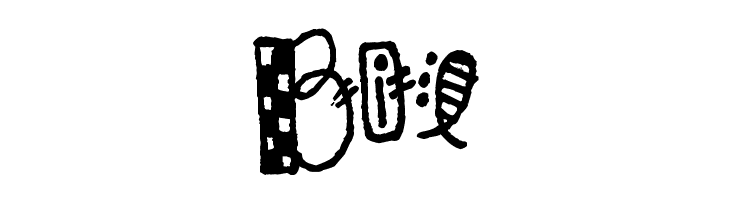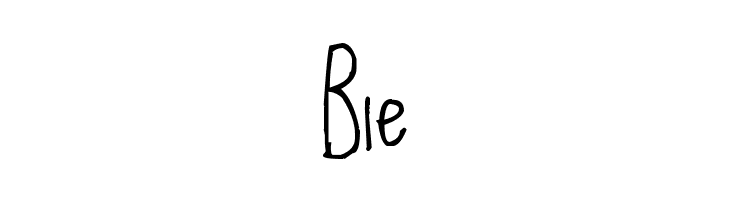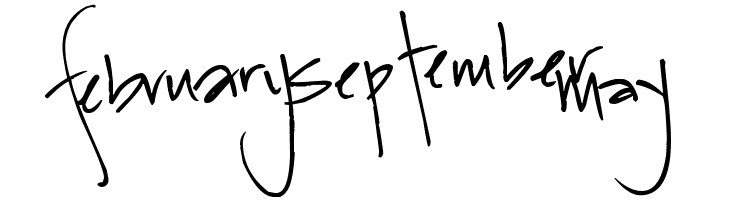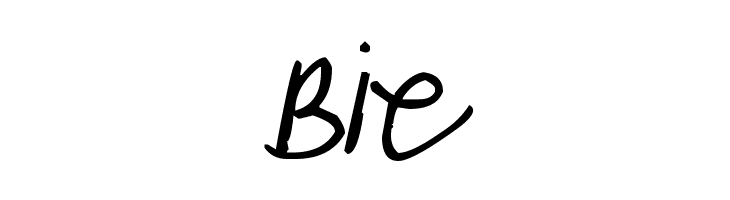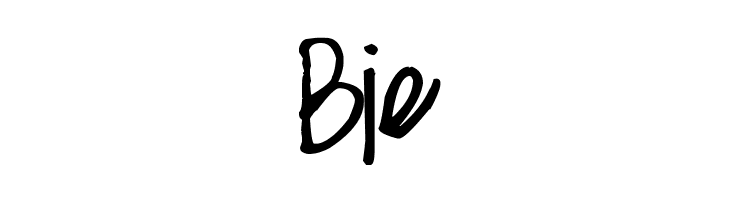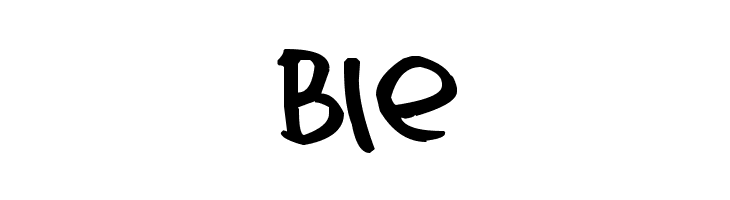
• Pea Ambrielle
A whimsical, hand-drawn font with playful, decorative elements.
• Pea Amie
A playful, informal handwritten font with uneven strokes and a friendly style.
• Pea Amy G
A playful, casual handwritten font with an organic, lively style.
• Pea Amy Jo Jo
A playful, hand-drawn font with tall, narrow letters and a whimsical charm.
• Pea Annie
A casual, playful handwritten font with fluid, natural strokes.
• Pea Ashley Rose
A playful and casual handwritten font with a dynamic, informal style.
• Pea Ashlyn
A playful, casual handwritten font with dynamic, irregular strokes.
• Pea Becky's Babblings
A playful, casual handwritten font with a whimsical charm.
• Pea Bestow's Doodles
A playful, handwritten font with whimsical doodles and a casual style.
• Pea Bhea
A playful and dynamic handwritten font with fluid strokes.